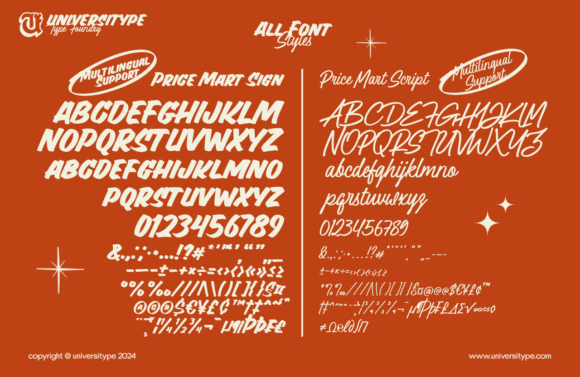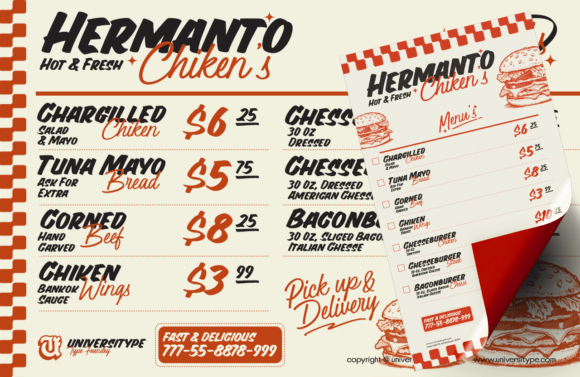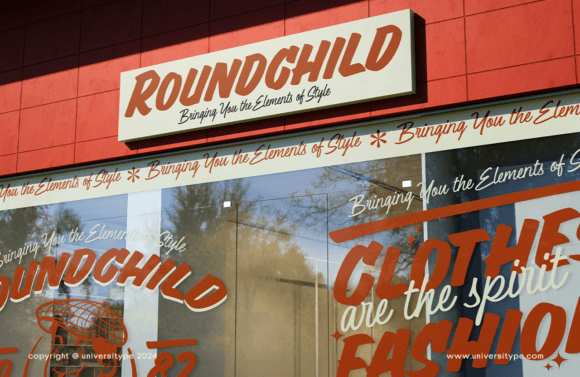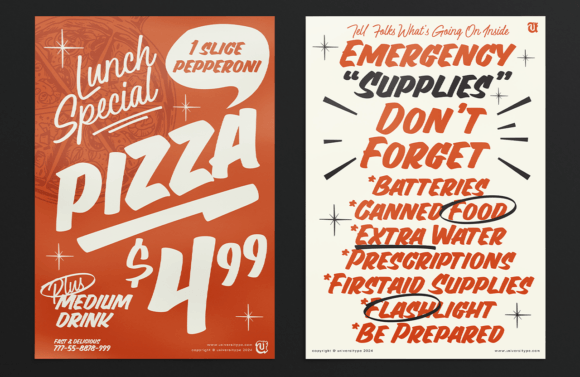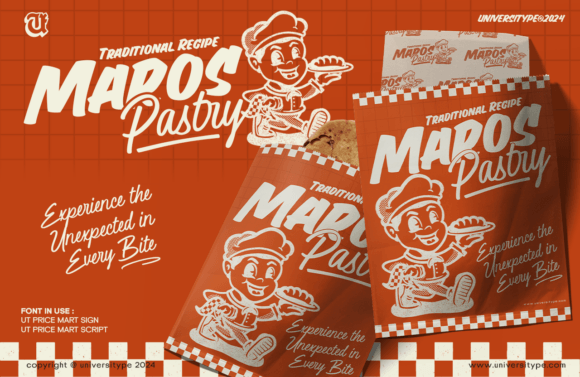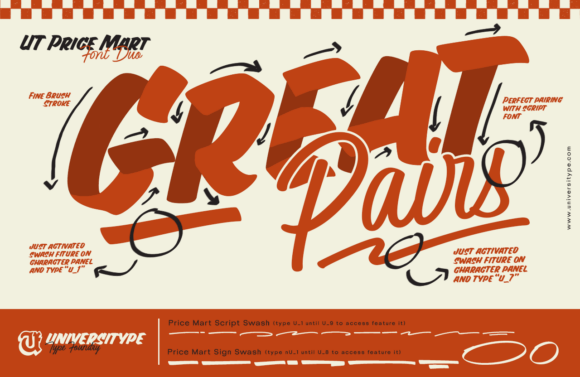
Unveiling the Magic of Price Mart Duo Font
As a designer, have you ever found yourself stuck in a creative rut, searching for the perfect font to elevate your project? The moment of discovery is exhilarating, and it’s exactly what happens when you come across the Price Mart Duo Font. This stunning font pair is a masterful blend of classic charm and contemporary edge, making it an invaluable resource for designers looking to add a touch of sophistication to their creative projects.
With its assertive sans-serif typeface and elegant script, the Price Mart Duo Font is a dynamic duo that guarantees high-quality results. Whether you’re designing signage, crafting brand elements, or creating promotional materials, this font pair is a versatile design resource that’s sure to impress. And the best part? It’s available for free download, making it an accessible and transparent background for your creative endeavors.
As a valuable addition to your design toolkit, the Price Mart Duo Font is a game-changer for designers who demand the highest quality in their work. Its compatibility across various design software makes it a breeze to integrate into your process, ensuring that your designs are always on point. So, why settle for anything less when you can unleash the magic of the Price Mart Duo Font in your next creative project?
Key Features of Price Mart Duo Font
- High-quality font designed for creative projects, perfect for logos, branding, and advertisements.
- Transparent background, allowing for easy layering and customization in graphic design software.
- Comes in two font styles: Price Mart Duo Font Regular and Price Mart Duo Font Bold, offering versatility in typography.
Honest Review: Price Mart Duo Font
As a designer, I’m always on the lookout for high-quality fonts that can elevate my creative projects. Recently, I came across the Price Mart Duo Font, and I was excited to give it a try.
What works well: ✨ The Price Mart Duo Font has a clean and modern design that’s perfect for any creative project. The font is highly customizable, making it easy to use in various design contexts. The transparent background feature is also a bonus, allowing for seamless integration with other design elements.
What could be improved: ⚠️ While the font is free to download, it’s not entirely free of limitations. The font only includes two styles: Regular and Bold. This might not be sufficient for designers who need a more comprehensive font set. Additionally, the font’s compatibility with certain software can be a bit finicky.
Overall, I’d say the Price Mart Duo Font is a solid design resource that’s worth exploring. While it may not be perfect, its high quality and versatility make it a great choice for designers on a budget. If you’re looking for a free font to add some visual interest to your next creative project, the Price Mart Duo Font is definitely worth checking out.
Key features:
- High-quality, modern design
- Transparent background feature
- Only two styles: Regular and Bold
- May have compatibility issues with certain software
Price Mart Duo Font
The Price Mart Duo Font is a high-quality design resource, perfect for any creative project. This font offers a unique and stylish look that can elevate your design to the next level.
For the best results, use the Price Mart Duo Font on a transparent background to create a clean and modern look. You can also experiment with different font sizes and styles to add depth and interest to your design.
The Price Mart Duo Font is perfect for a variety of design projects, including logos, business cards, brochures, and social media graphics. It’s also free to download, making it a valuable design resource for any creative project.